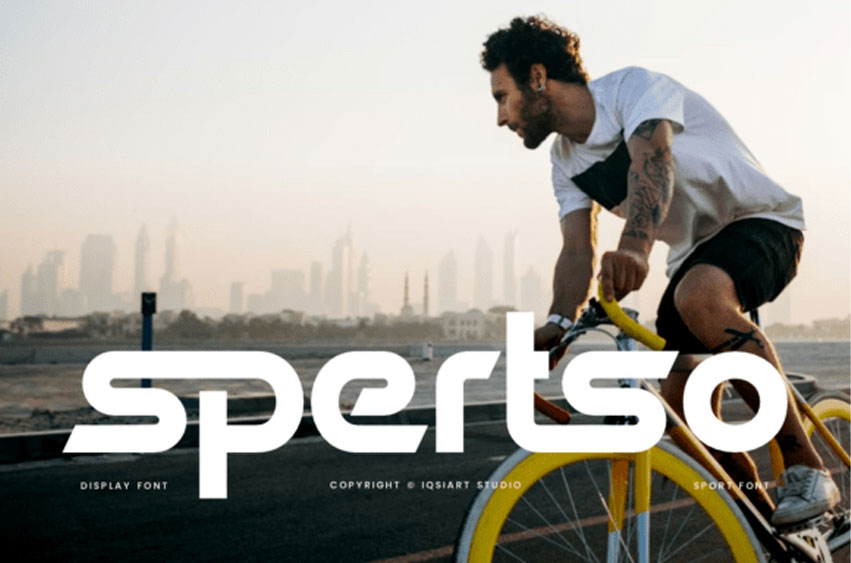
Spertso Font is a bold and authentic display typeface that suits a variety of design needs.
It fits in headlines, logos, posters, flyers, invitations, name cards, branding materials, print media, editorial layouts, and many more.